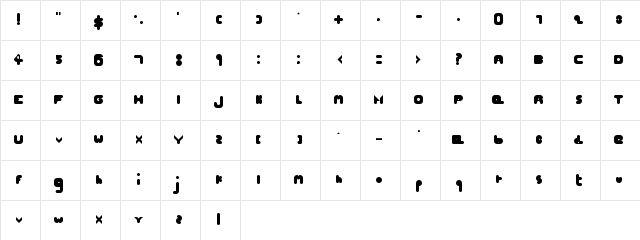
hellogoodbye Regular
Design Context for hellogoodbye
hellogoodbye is a composed and adaptable typeface that performs quietly and consistently across a wide range of design contexts.